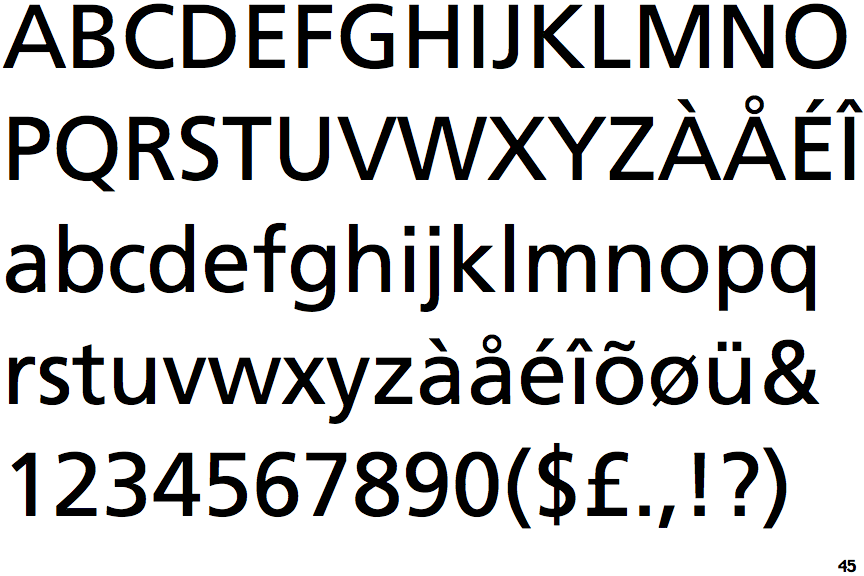
Frutiger Font Alternative. These fonts are free to use and would make a. Web there are many free humanist fonts pretty similar to frutiger:
These fonts are free to use and would make a. However, as others have noted,. Web find fonts and families similar to frutiger. Web here are 2 google font alternatives for frutiger that are similar in nature. Web there are many free humanist fonts pretty similar to frutiger: Web while similar fonts to frutiger can be found within the google fonts library, they cannot replace the actual font. Open sans, roboto and others.
Web find fonts and families similar to frutiger. However, as others have noted,. These fonts are free to use and would make a. Web while similar fonts to frutiger can be found within the google fonts library, they cannot replace the actual font. Open sans, roboto and others. Web there are many free humanist fonts pretty similar to frutiger: Web here are 2 google font alternatives for frutiger that are similar in nature. Web find fonts and families similar to frutiger.